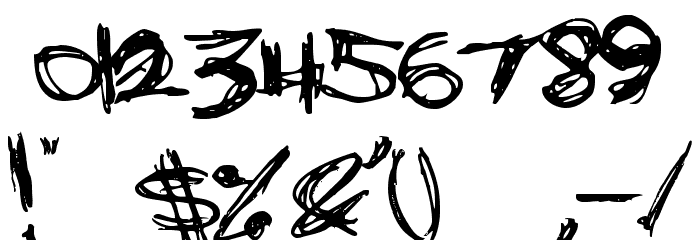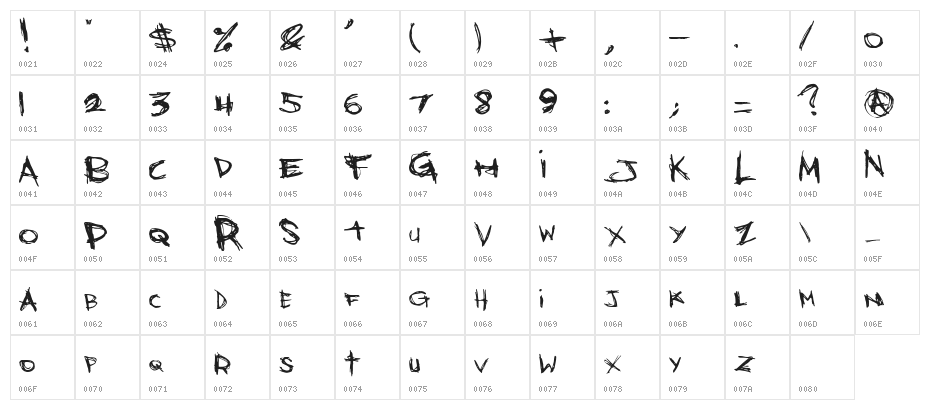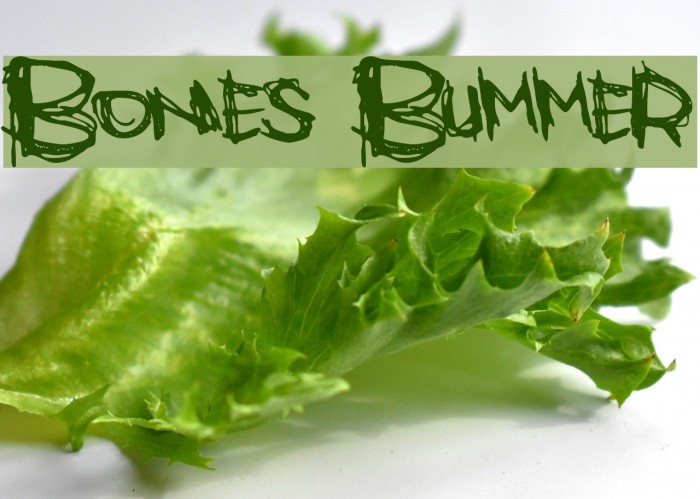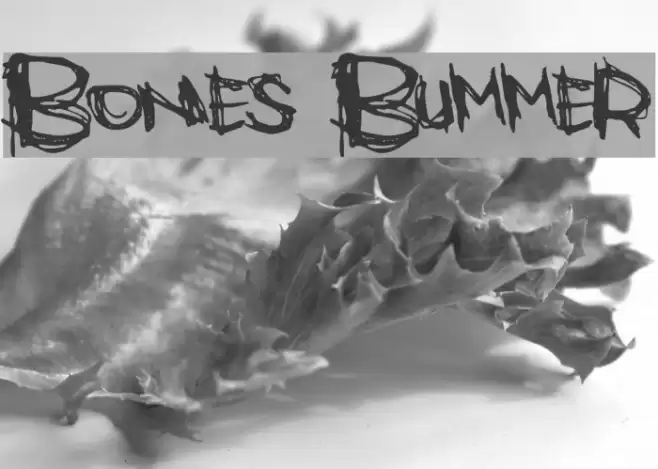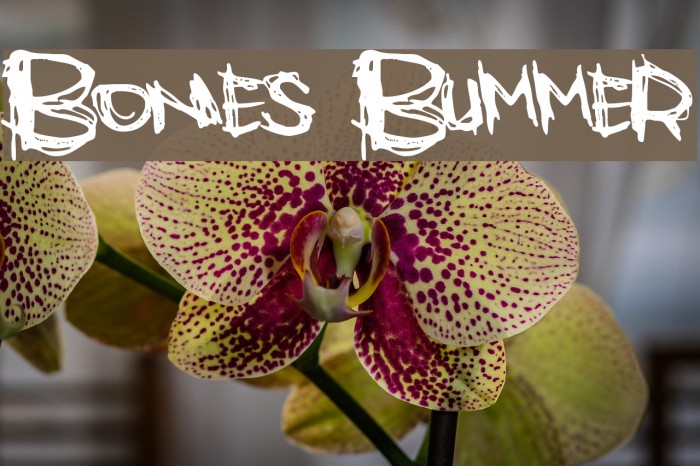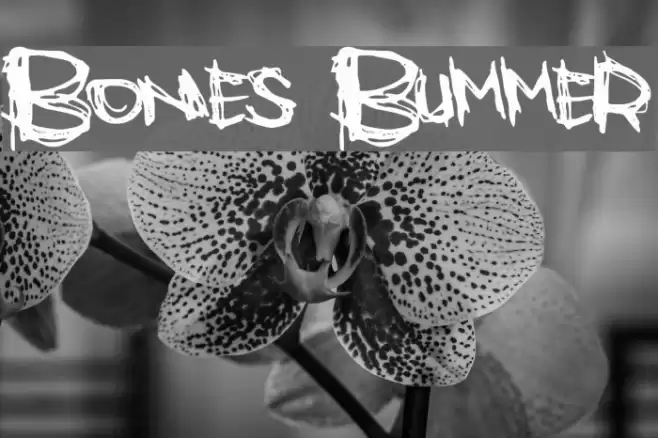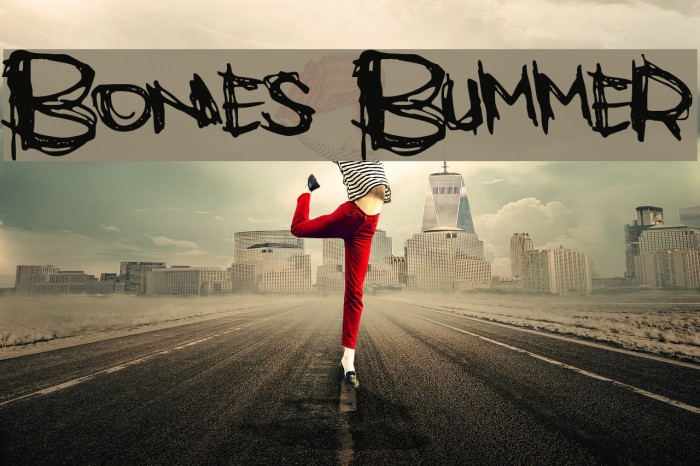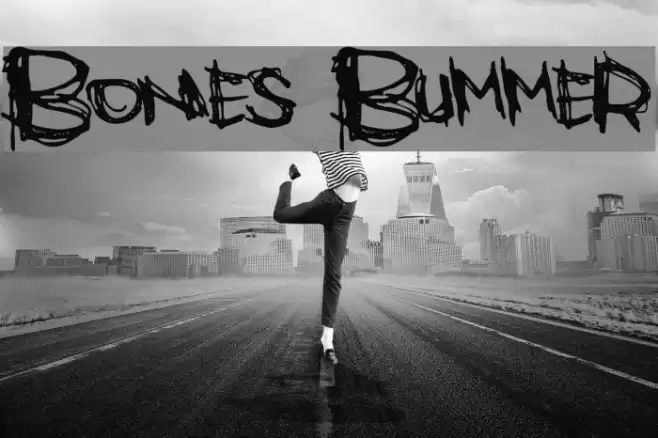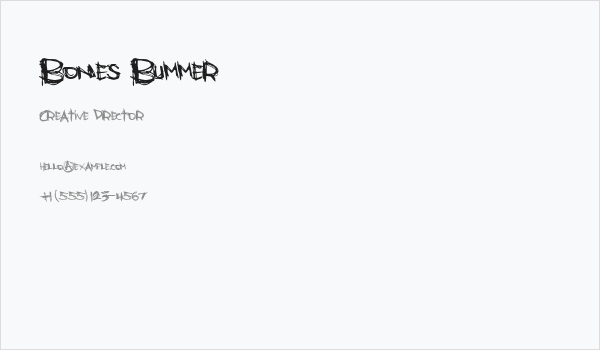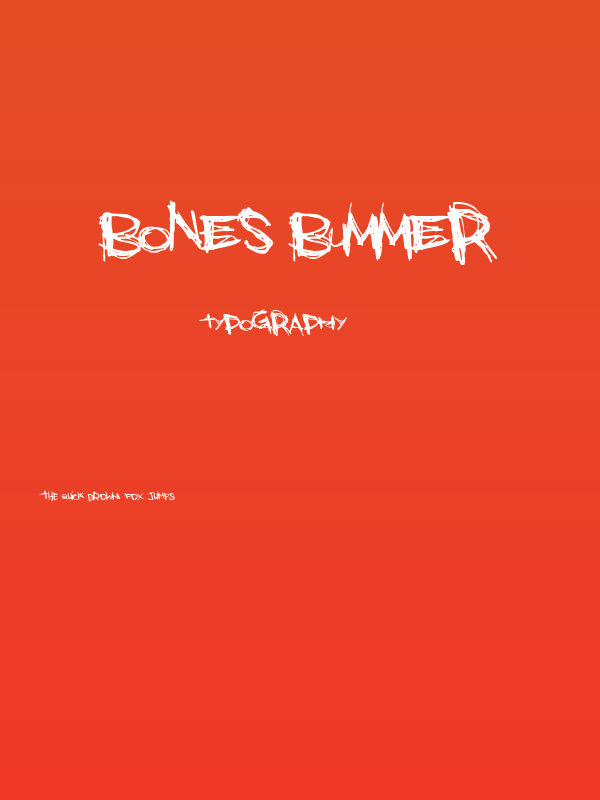
Bones Bummer Font
Bones Bummer Description
This font exudes a raw, edgy aesthetic with its jagged, uneven strokes and distressed appearance. Each character appears hand-drawn, with a chaotic yet intentional design that gives it a rebellious and grunge-like feel. The uppercase and lowercase letters maintain a consistent style, with exaggerated angles and a rough texture that mimics the look of graffiti or street art. The numbers and special characters follow suit, adding to the font's overall rugged and unconventional vibe. This font is perfect for projects that require a bold statement and a touch of urban flair.
| Overall Style | Grunge, Urban, Rebellious |
| Use Case | Logos, Posters, Album covers |
| Proposed Projects | Ideal for album covers, streetwear branding, skateboarding graphics, or any project needing a rebellious touch. |